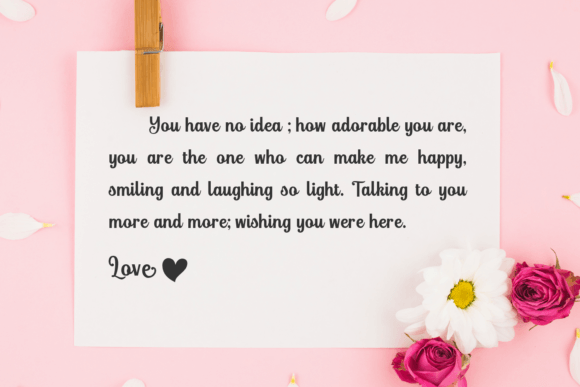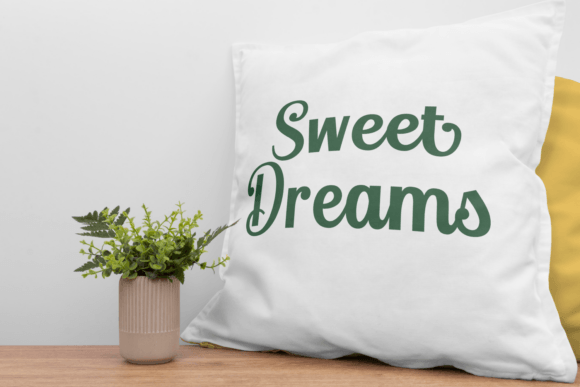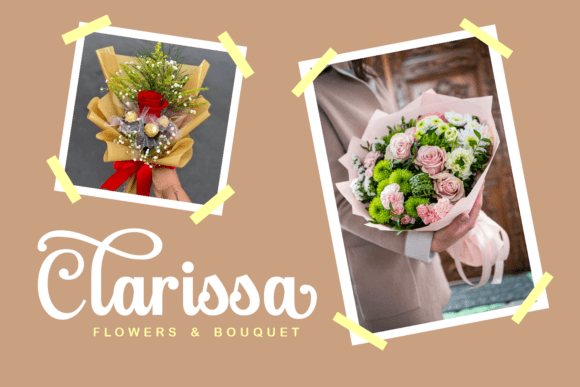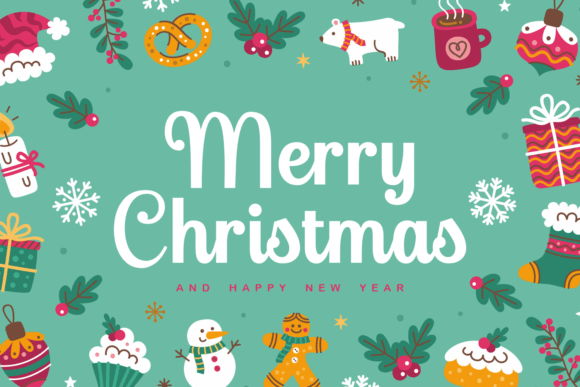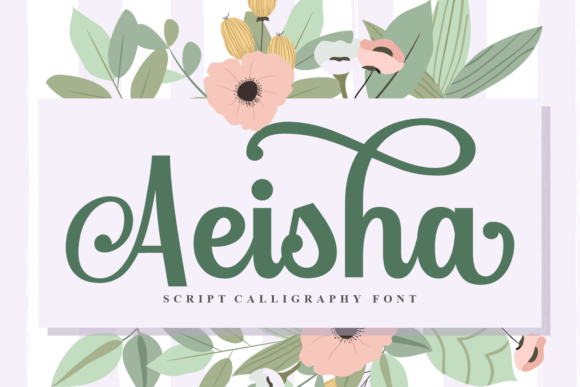
The Aeisha Font: Elevate Your Designs with Elegance and Flair
I’ll never forget the time I was working on a wedding invitation project, and my client asked for a font that exuded sophistication and romance. I scoured the internet, trying out font after font, but nothing seemed quite right. That was until I stumbled upon the Aeisha font. With its bold, flowing letters and modern aesthetic, it was love at first sight! ✨ In this article, I’ll share my experience with the Aeisha font, its features, and how to make the most of it in your designs.
A Personal Review of Aeisha Font
- ✨ Stunning Visual Impact: The thick strokes and curves of Aeisha create a striking visual effect, making it perfect for headings, titles, and anywhere you want to draw attention.
- ✅ Elegant and Modern: Aeisha’s unique blend of classic script and modern flair makes it suitable for a wide range of design projects, from wedding invitations to logos and branding.
- 🌈 Versatile: This font is incredibly versatile, and its beauty shines in both digital and print designs.
While Aeisha is an exceptional font, there are a few things to keep in mind:
- ⚠️ Legibility at Small Sizes: Like many script fonts, Aeisha can become tricky to read at very small sizes. It’s best used at larger sizes (18pt or above) to ensure optimal legibility.
- 🤔 Pairing with Other Fonts: Due to its bold and elegant nature, Aeisha can be a bit challenging to pair with other fonts. You’ll want to choose complementary fonts that don’t compete with its stylishness.
The Story Behind Aeisha Font
Aeisha was designed by a talented type designer who aimed to create a font that embodied both modernity and elegance. Inspired by the flowing curves of handwritten scripts, Aeisha was crafted to make a statement in any design. With its bold strokes and beautiful letterforms, Aeisha has quickly become a favorite among designers and crafters.
| What makes Aeisha font unique? | Aeisha’s unique blend of modern and elegant features, along with its bold strokes and flowing curves, make it a standout font for any design project. |
| Is Aeisha suitable for body text? | While Aeisha is beautiful, it’s not ideal for large blocks of body text. Its bold and elegant nature makes it better suited for headings, titles, and short paragraphs. |